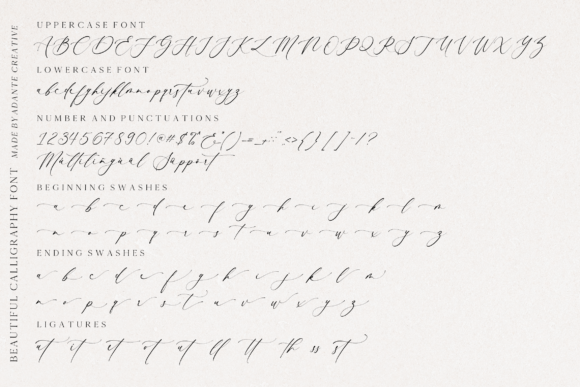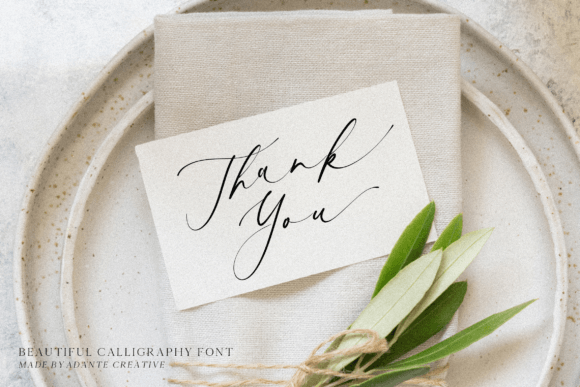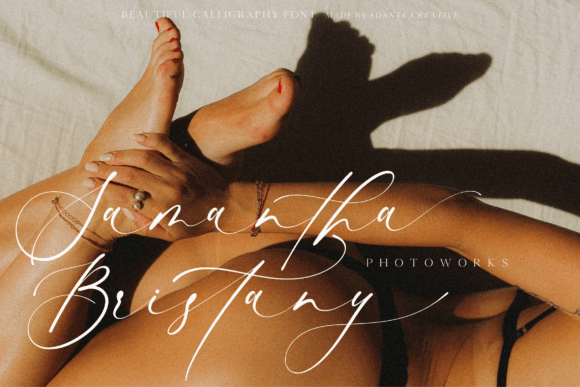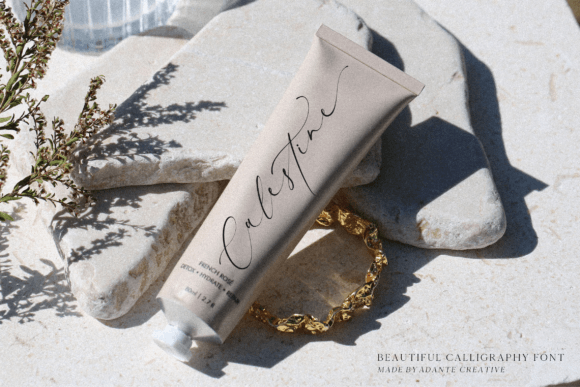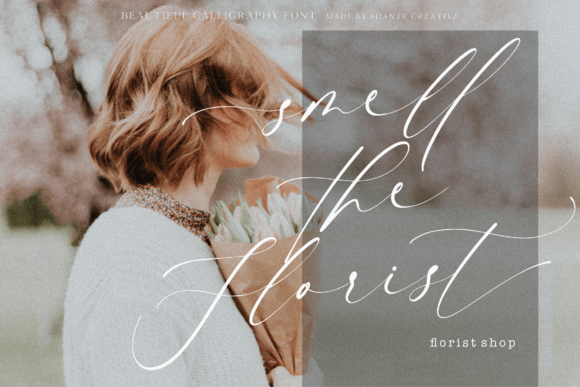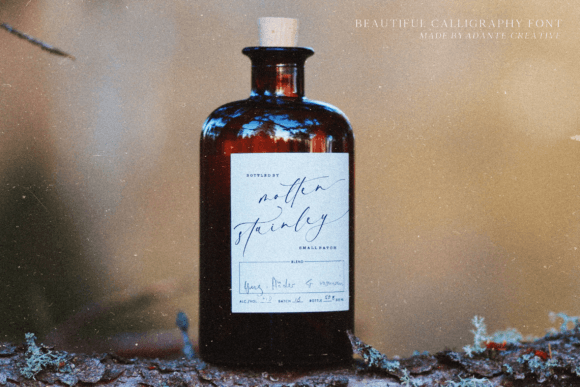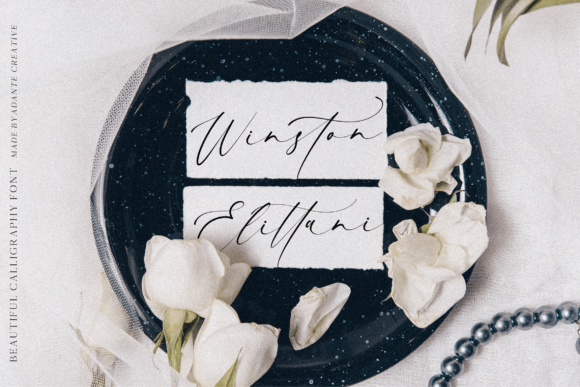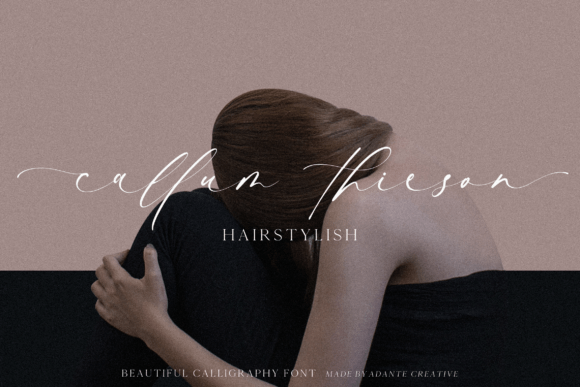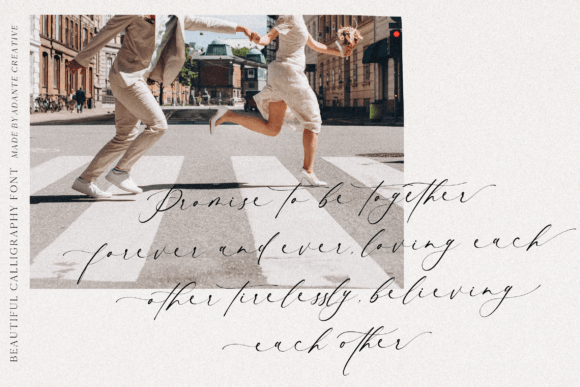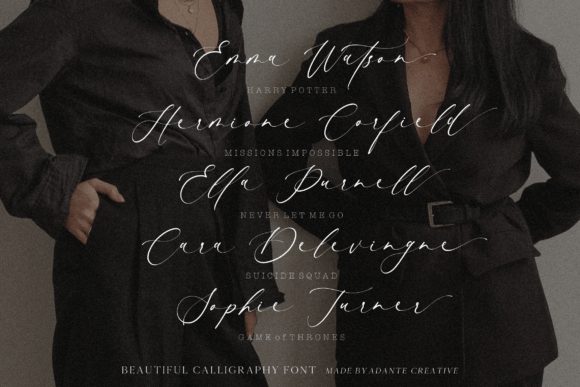
Mothenary Font
About Mothenary Font
**Mothenary:** *Elegant Calligraphy Font for Every Occasion*
Introducing Mothenary, a stunning calligraphy font that adds a touch of elegance and sophistication to any project. Whether you’re designing product packaging, working on a branding project, creating captivating magazine layouts, or curating engaging social media content, Mothenary is the font that will elevate your designs to new heights. It’s also the perfect choice for weddings, allowing you to express your sentiments beautifully. Plus, with its PUA encoding, you can effortlessly access all the intricate glyphs and swashes for maximum creative freedom.
Mothenary is the epitome of grace and refinement. Its beautifully crafted letterforms exude timeless elegance, making it the ideal choice for projects that demand a touch of sophistication. This font elevates product packaging, infusing your brand with a sense of luxury and style that captures the attention of discerning consumers.
For branding projects, Mothenary becomes the embodiment of your brand’s values and aesthetics. Its curves and flourishes convey professionalism and creativity, helping your brand stand out in a competitive marketplace. Mothenary’s versatility extends to the world of magazines, where it transforms your layouts into captivating visual experiences. Its readability and charm ensure that your content is both engaging and memorable.
When it comes to social media, Mothenary adds a dash of elegance to your posts, making your content more shareable and relatable. Its classic yet contemporary style strikes a chord with modern audiences. For weddings, Mothenary is the perfect choice to express the depth of emotions and sentiments associated with this special occasion. Use it for invitations, place cards, menus, and more to create an atmosphere of beauty and love.
Mothenary’s PUA encoding empowers you with access to an array of intricate glyphs and swashes. This means you have the creative freedom to customize and embellish your designs, ensuring that they truly represent your unique style and vision.
In summary, Mothenary is the go-to font for projects that require an infusion of elegance and sophistication. Its timeless calligraphy style elevates product packaging, branding, magazines, and social media content, while also adding a touch of romance to wedding materials. With Mothenary’s PUA encoding, your creativity knows no bounds, allowing you to craft exceptional designs that leave a lasting impression.